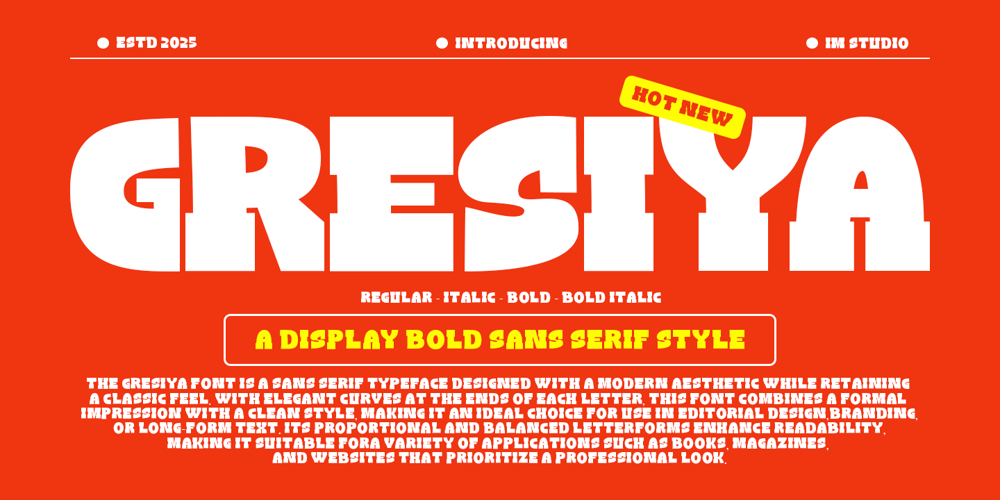
Gresiya Font Family was designed by Ikhsan Maulana and published by IM Studio. Gresiya contains 4 styles and family package options. Gresiya is a graceful and enchanting typeface that combines classic beauty with contemporary style. Its design features elegantly crafted curves and smooth letterforms, creating a harmonious flow that is pleasing to the eye. I have enhanced Gresiya with a variety of carefully designed ligatures and alternate characters, which offer even more flexibility and creative possibilities. These features add a sophisticated and artistic feel to any project, making it perfect for branding, wedding invitations, or editorial layouts. Gresiya exudes a timeless charm that enhances visual appeal, and its delicate balance of modern elegance and vintage-inspired details makes it a perfect choice for those looking for a typeface that exudes style and personality.What’s Included:Standard GlyphsMultilingualWeb FontWorks on PC & Mac Simple installationWe hope you enjoy this font, feel free to comment if you have any thoughts or feedback.Thank you for purchasing and happy to help you!!!